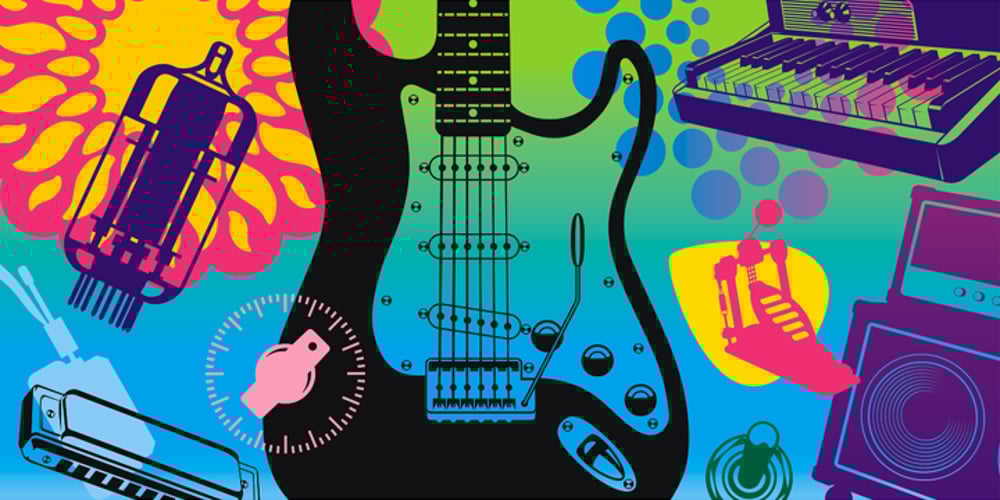
Ampmosphere Font Family was designed by Joey Stephen Maul and published by Joey Maul. Ampmosphere contains 1 styles and family package options. Ampmosphere, a picture font, contains instruments and components from a 60’s rock and roll band. After a friend’s request to create a guitar graphic, I decided to start a set. Over time, more instruments were added along with amps, tubes, lights, etc. The glyphs are great to use individually or combined. 65 detailed glyphs in all… A – Z upper and lower case; 0 – 9; comma, period and forward slash. Upper case A, B, C and D are the separate strings for the stringed instruments a, b, c and d.